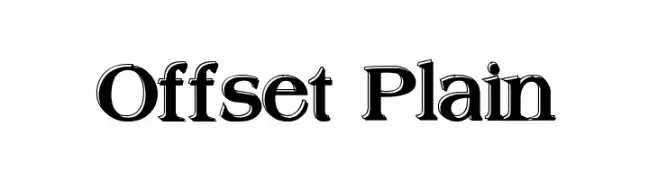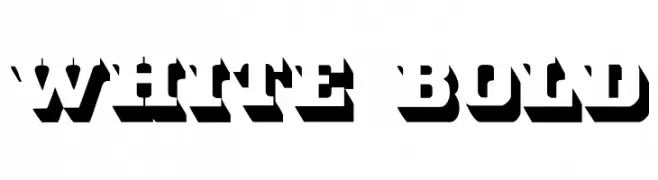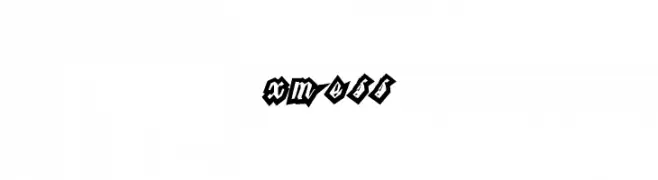
A bold, angular, decorative font with a three-dimensional outline effect.
A 3D sketch-style font with a hand-drawn, dimensional appearance.
A playful, hand-drawn font with a sketch-like, three-dimensional appearance.
A bold, modern font with a three-dimensional outline style and geometric shapes.
A bold, playful font with a cartoonish, three-dimensional style.
A playful, bold font with rounded, cartoonish characters and a three-dimensional effect.
A bold, playful font with a three-dimensional outline effect.
A bold, playful font with a cartoonish, three-dimensional style.
A bold, playful font with a three-dimensional outline and shadow effect.
A bold, decorative font with a distressed, three-dimensional look.
A bold, decorative font with a retro, three-dimensional style.
A bold, three-dimensional font with a shadow effect, offering a modern and dynamic look.
A bold, three-dimensional font with a modern, geometric style and shadow effect.
A bold, shadowed font with a three-dimensional geometric style.
A bold, playful font with a three-dimensional outlined effect.
A bold, italicized font with a futuristic, three-dimensional design.
A bold, futuristic font with geometric and three-dimensional elements.
A bold, decorative font with a three-dimensional beveled effect and striped pattern.
A beveled serif font with a three-dimensional, classic appearance.
A classic serif font with a unique beveled, three-dimensional style.